Are you searching for all of the best DaFont fonts? We’ve got you covered! Check out our roundup below!
Of the many free font websites available today, DaFont, in our opinion, is king.
With an ocean of fonts to choose from including many handwritten font options, anyone can score some of the most popular Google fonts there are! From fonts we see in pop culture to fonts we use for formal documents like school essays and corporate SOPs, there’s a font for everyone.
Let’s go over 29 of the best DaFont fonts and see if anything rings a bell for you here.
29+ Best DaFont Fonts in 2025
1. Bebas Neue
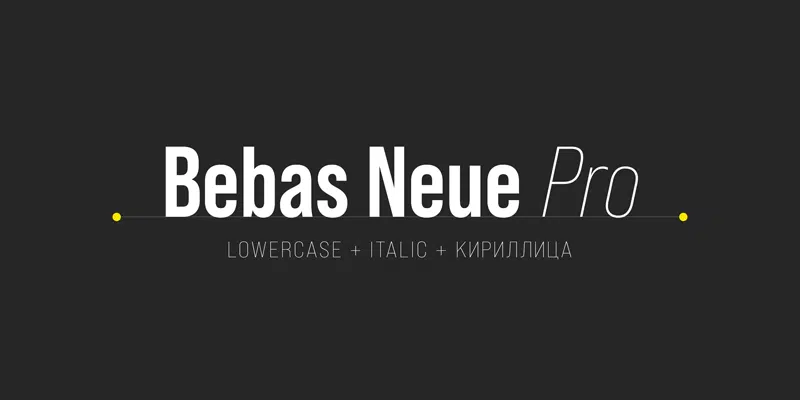
Of the hundreds of fonts available on the platform, Bebas Neue is the most downloaded pick. And it’s not hard to figure out why.
Sporting a formal overall look, this sans serif is the perfect font for a wide array of projects. Whether playful or elegant, there are a ton of things this bundle can complete.
2. Lemon Milk
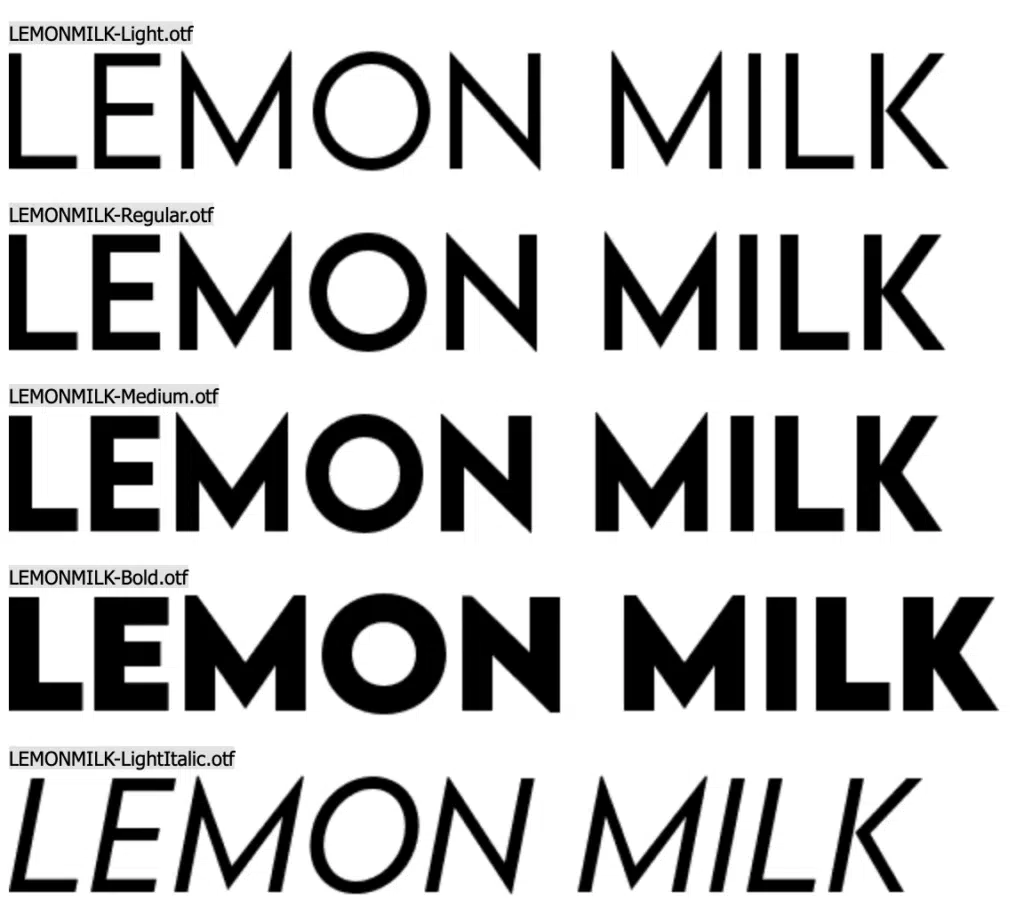
Lemon Milk is the most downloaded pick from the free-font platform, DaFont.
Similar to Bebas Neue, this bundle sports a classy aesthetic. Also a beautiful sans serif, we think this headline-inspired font is suitable for a plethora of designs!
For example, anything that needs space to emphasize its message, like headers, would look great in this font.
Furthermore, we found that the font pack includes a host of other fonts for Latin, Greek, and Cyrillic letters aside from numerals and punctuation.
3. Chopin Script
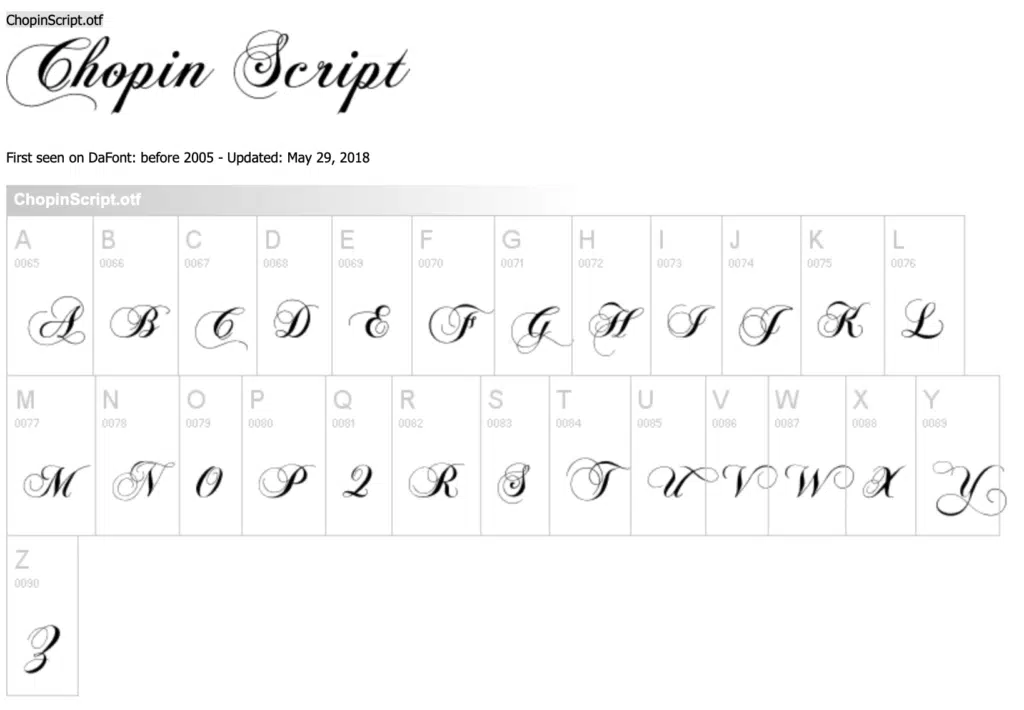
You didn’t think the best DaFont fonts would be complete without a space in script font, would you? Chopin Script is the first entry in that category.
Complete with space in both uppercase and lowercase letters, on top of basic punctuation marks, it’s easy to understand why this is a top pick for designers.
4. Waltograph
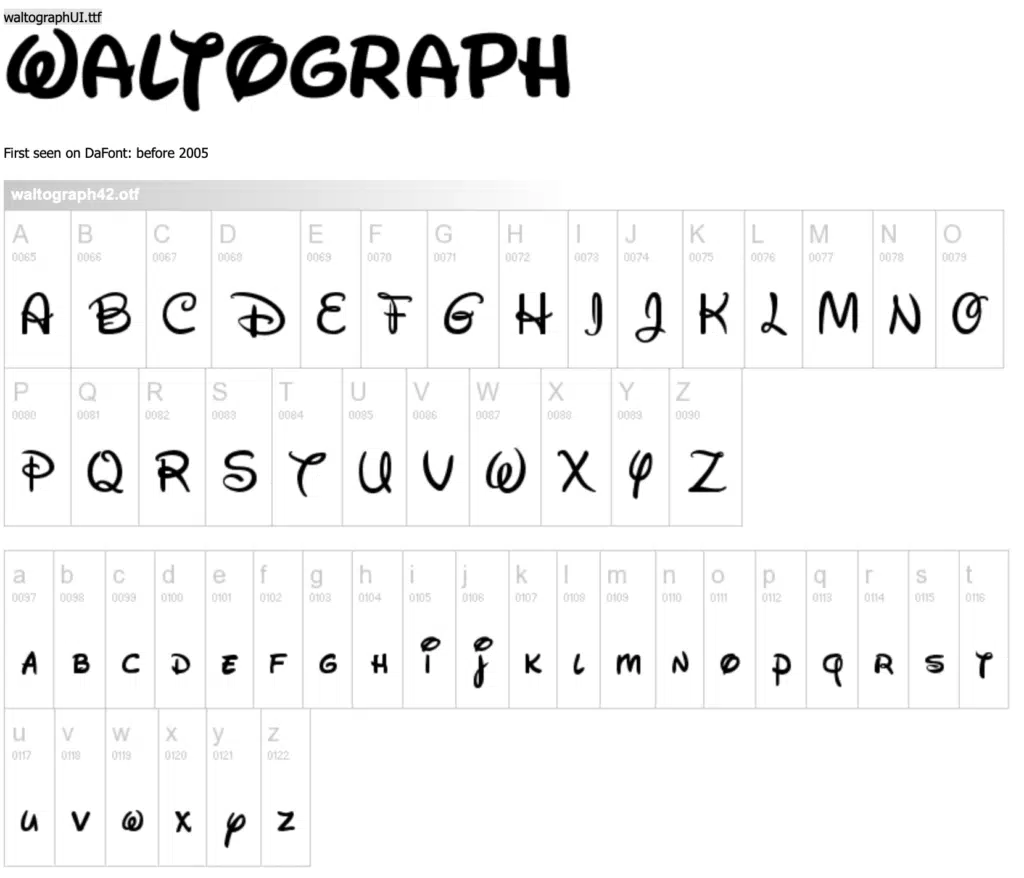
To be honest: is anyone even surprised how Waltograph made the list? Perfect for all of your Disney-themed designs, there’s plenty to like about this free font bundle! Download it today!
5. Shorelines Script
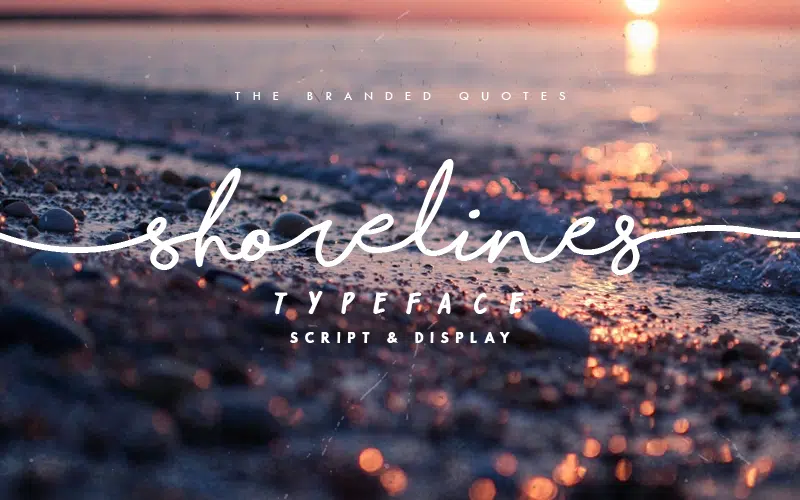
Shorelines Script is the second entry in the script typeface category. The only difference here is that this font bundle looks a little more handwritten than the first one. It’s dainty, nice to look at, and the text features slender lines.
6. Coolvetica
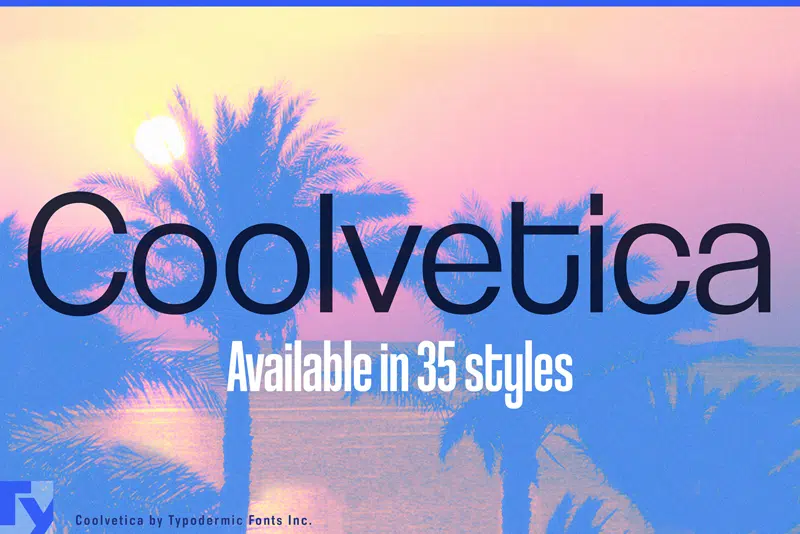
Here’s one you may have already come across at some point. DaFont’s Coolvetica packs distinct letters reminiscent of a sans-serif font bundle. And the best part? It’s available in 35 completely different styles!
It’s a classic DaFont font that has only increased in popularity. We recommend using it for summer-themed projects, banners, and even food menus.
7. Birds of Paradise
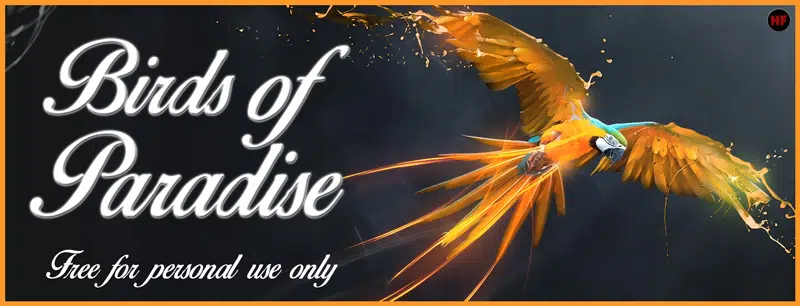
There is no shortage of script typefaces on this list, and Birds of Paradise is proof of that. Designed only for personal use, this pick is great for stationary projects, DIY home card framed quotes, and other similar ventures!
8. Caviar Dreams
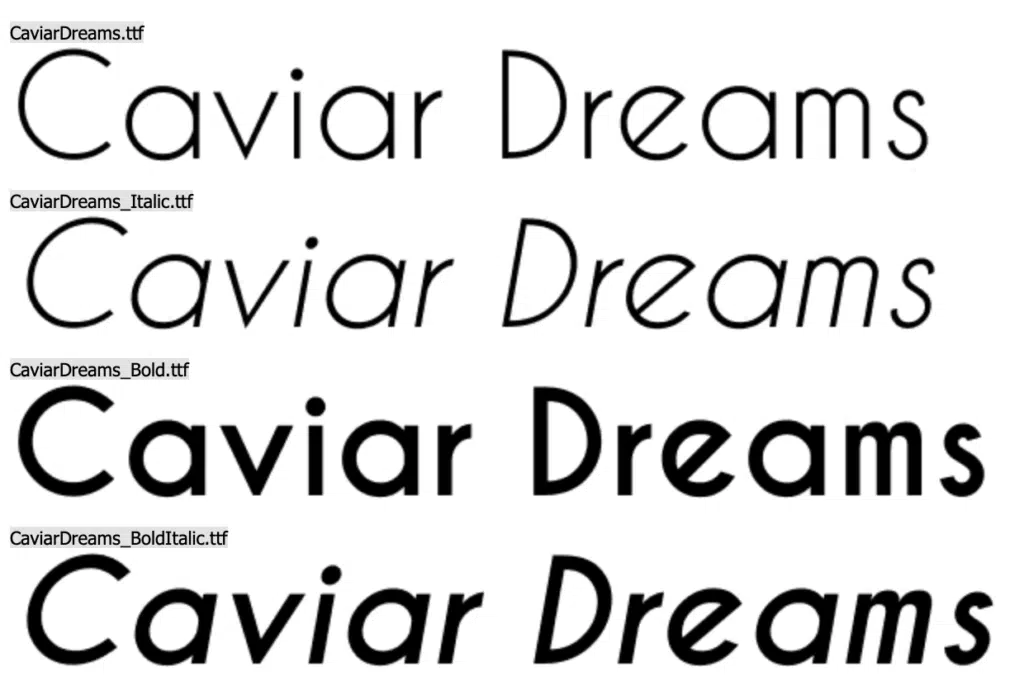
Caviar Dreams is familiar enough to be legible and discernible, yet it’s distinct enough to stand out.
For instance, all of the font bundle’s lowercase letters Es are spelled with a slant. If you’re designing playful headlines, but still want them to appear classy, you’re going to like this one.
9. Bebas
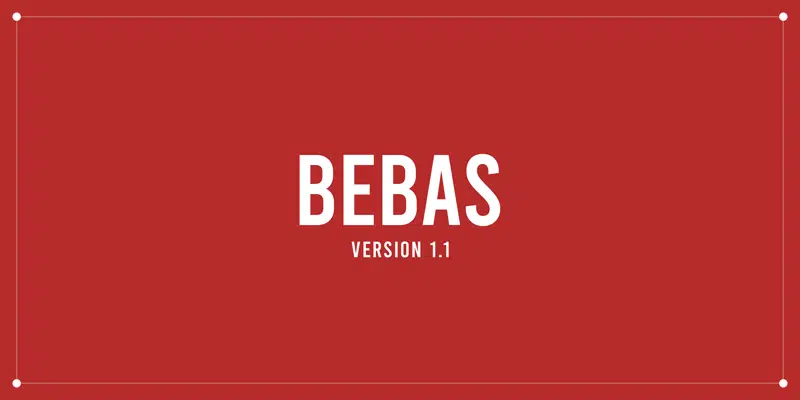
Consider this version 1 of the most downloaded Dafont Font. Bebas is an all-uppercase sans serif that does a swell job of keeping tradition where it is. It’s familiar, easy to read, and the perfect font for signage. What’s not to like?
10. Champagne & Limousines
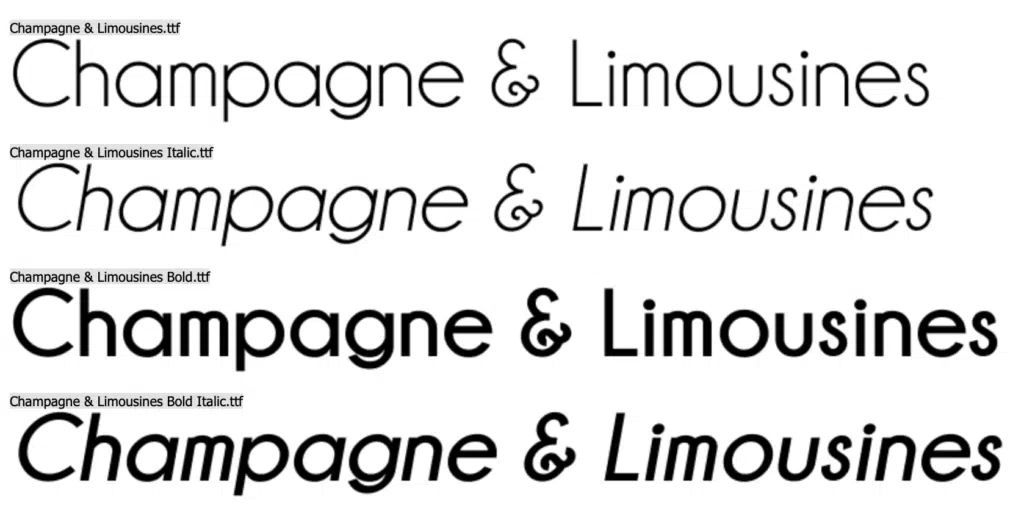
Champagne & Limousines hits all the right spots in looking fresh, clean, and elegant. Complete with lowercase and uppercase letters, this pick combines serifs and sans serifs with ease and poise.
11. Cheri
Are you looking for something a little more unserious? Perhaps you should go for Cheri. Complete with lowercase and uppercase letters, this 3D-like comic-inspired typeface should be a swell addition to many relevant designs.
12. Scriptina
Scriptina feels like a handwritten script font that’s mostly seen on invitations and marketing materials. Is this something you thought you could use soon? Download it today, and save it on your computer!
How to use DaFont fonts on Canva?
To use DaFont fonts on Canva, go to the home screen and tap Menu, then Brand and the Brand Kit tab. Scroll to Fonts and tap the upload icon. Choose your font file, confirm you have the proper license, and wait for the upload to complete.